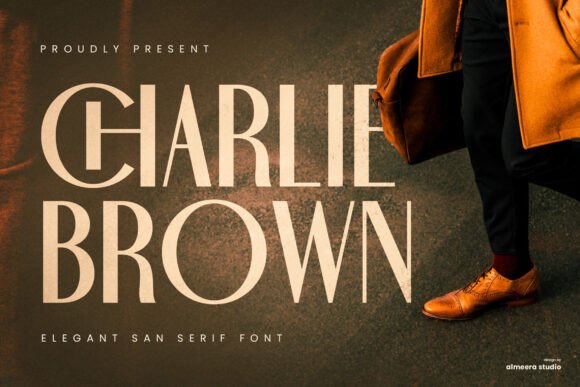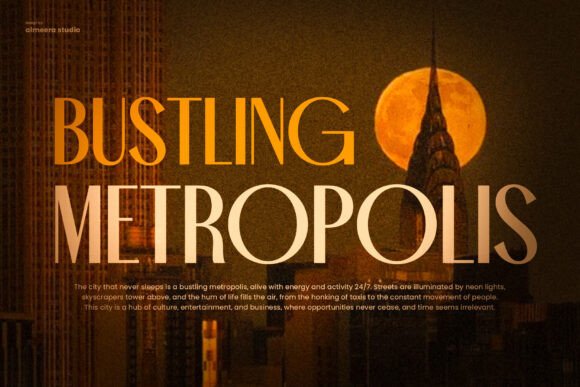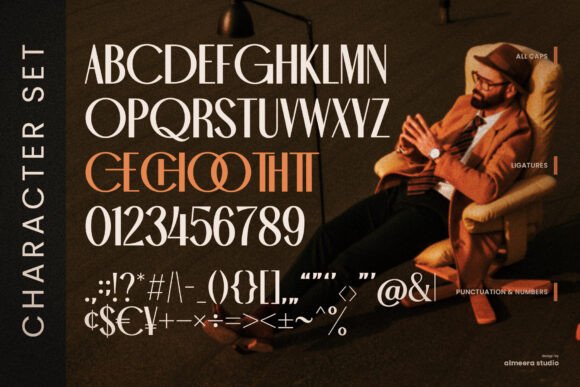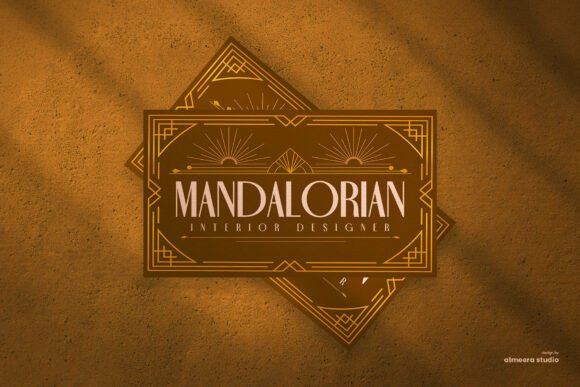
Charlie Brown Font: An Elegant & Modern Sans Serif for Branding
About the Charlie Brown Font
Get ready to be inspired by Charlie Brown Font, a fresh and dynamic typeface for modern creators. Introducing Charlie Brown – elegant modern sans. Charlie Brown is a modern, elegant and simple font, best used as a display for headings, logos, branding, magazines, product packaging and invitations.
Charlie Brown Font Usage Examples
Charlie Brown Font Example